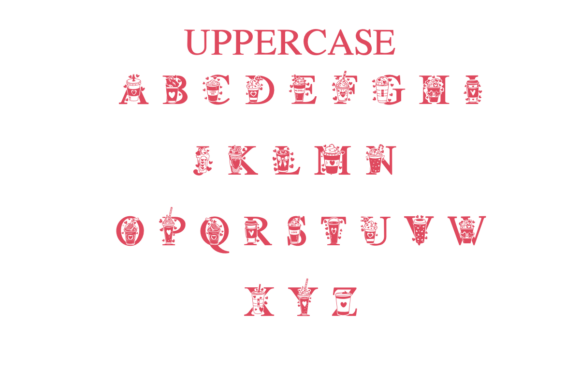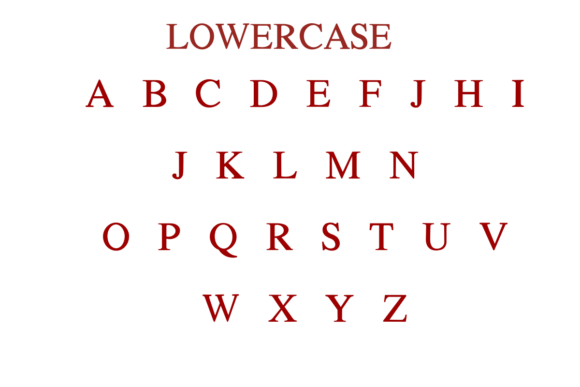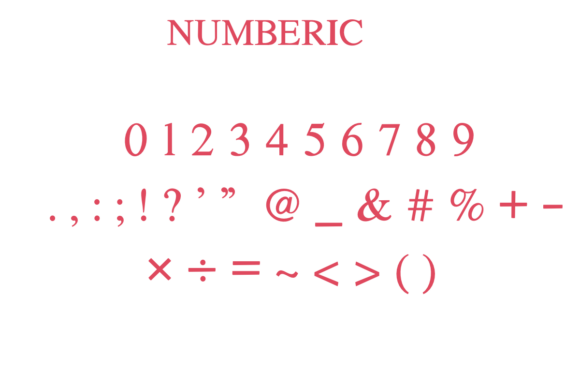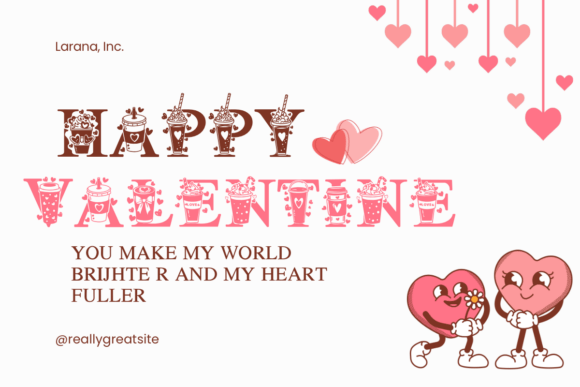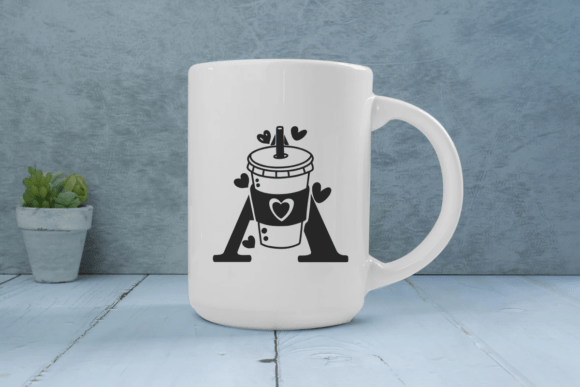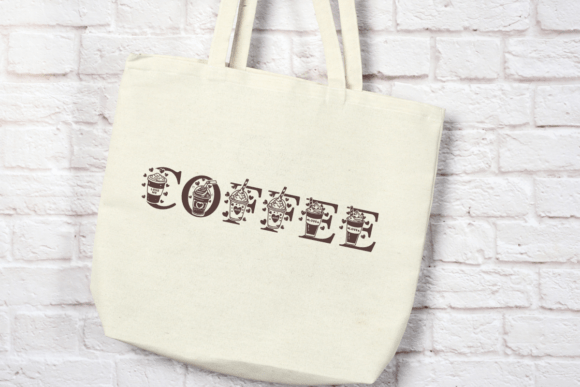
Coffee Valentine Font: The Perfect Addition to Your Creative Projects
Are you a designer, crafter, or DIY enthusiast looking for a unique and decorative font to add a personal touch to your projects? Look no further than the Coffee Valentine Font! This beautiful font is perfect for a variety of creative endeavors, from taking notes and writing diaries to creating greeting cards, banners, and social media posts.
What is Coffee Valentine Font?
Coffee Valentine Font is a decorative font designed to add a touch of elegance and whimsy to your projects. Its unique and intricate design makes it perfect for a wide range of applications, from personal to commercial use. Whether you’re creating a handmade card, a customized mug, or a social media post, this font is sure to make your project stand out.
Uses for Coffee Valentine Font
Coffee Valentine Font is a versatile font that can be used for a variety of creative projects, including:
- Taking notes and writing diaries: Add a personal touch to your journaling with this beautiful font.
- Creating greeting cards: Make your cards extra special with this decorative font.
- Designing banners: Use Coffee Valentine Font to create eye-catching banners for parties, events, or promotions.
- Customizing mugs: Add a personal message or quote to your mug with this unique font.
- Creating social media posts: Make your social media posts stand out with this decorative font.
- Designing shirts and stationery: Use Coffee Valentine Font to create customized shirts, stationery, and other paper crafts.
Why Choose Coffee Valentine Font?
There are many reasons why Coffee Valentine Font is a great choice for your creative projects. Here are a few:
- Unique design: This font has a one-of-a-kind design that will make your projects stand out.
- Versatile: Coffee Valentine Font can be used for a wide range of projects, from personal to commercial use.
- High-quality: Coffee Valentine Font is a high-quality font that will look great in any project.
Tips for Using Coffee Valentine Font
Here are a few tips for getting the most out of Coffee Valentine Font:
- Experiment with different colors: Try pairing Coffee Valentine Font with different colors to create a unique look.
- Mix and match with other fonts: Combine Coffee Valentine Font with other fonts to create a interesting and dynamic design.
- Use it for headings and titles: Coffee Valentine Font is perfect for headings and titles, adding a touch of elegance to your project.
- Don’t be afraid to get creative: Coffee Valentine Font is a versatile font that can be used in many different ways, so don’t be afraid to try new things!
Coffee Valentine Font is a beautiful and versatile font that is perfect for a wide range of creative projects. Its unique design and ease of use make it a great choice for designers, crafters, and DIY enthusiasts. Whether you’re creating a handmade card, a customized mug, or a social media post, Coffee Valentine Font is sure to add a personal touch to your project. So why not give it a try and see what amazing creations you can come up with?